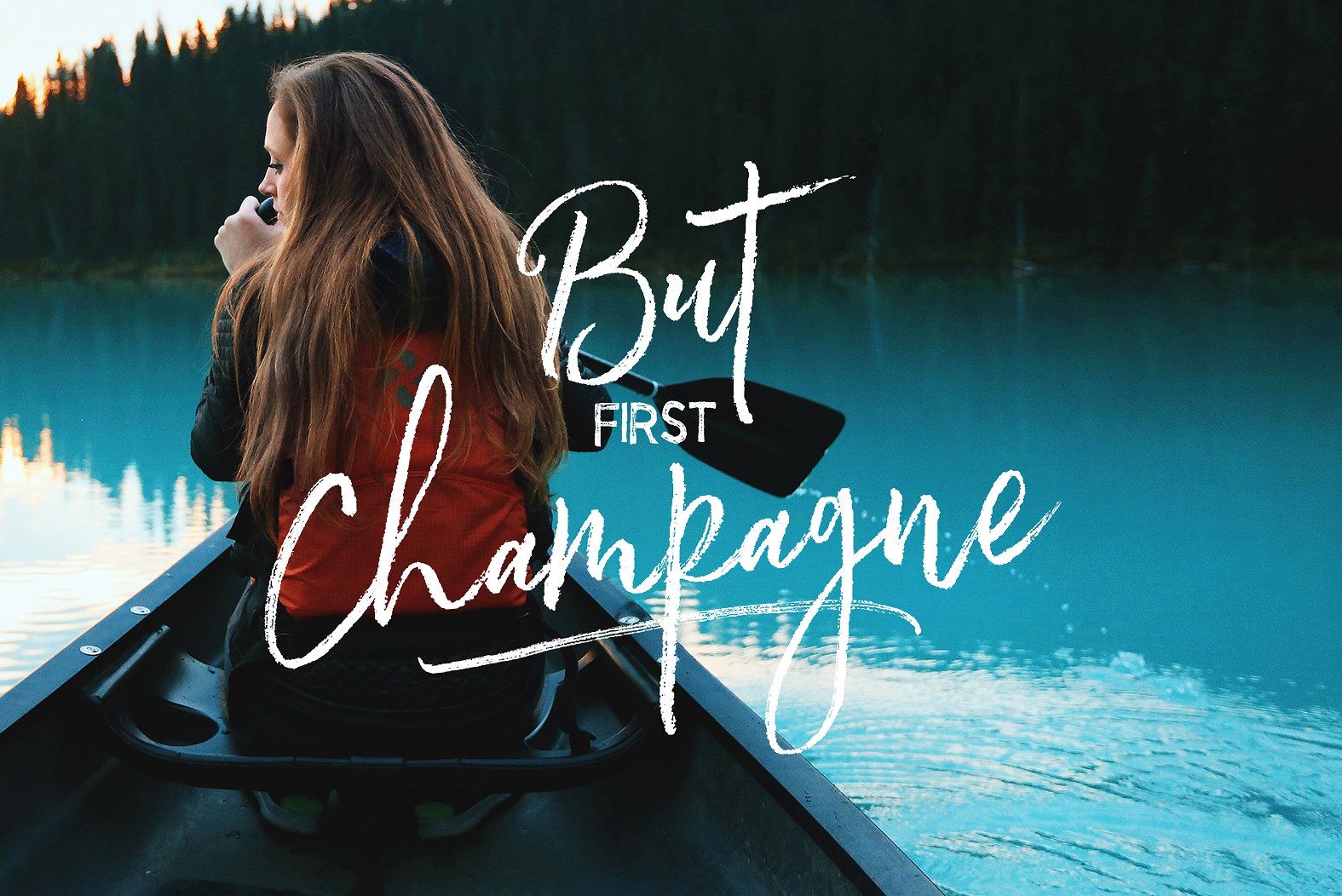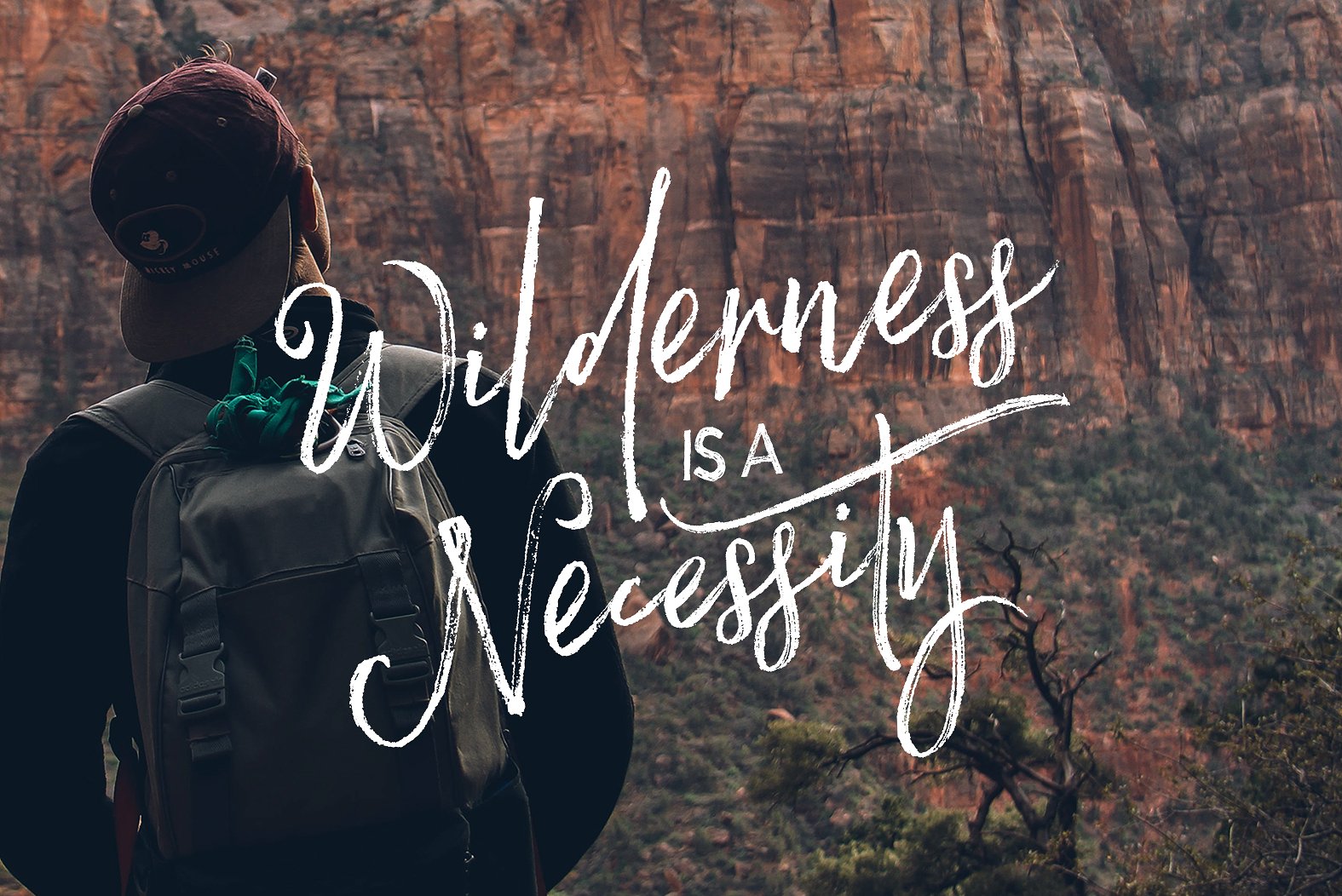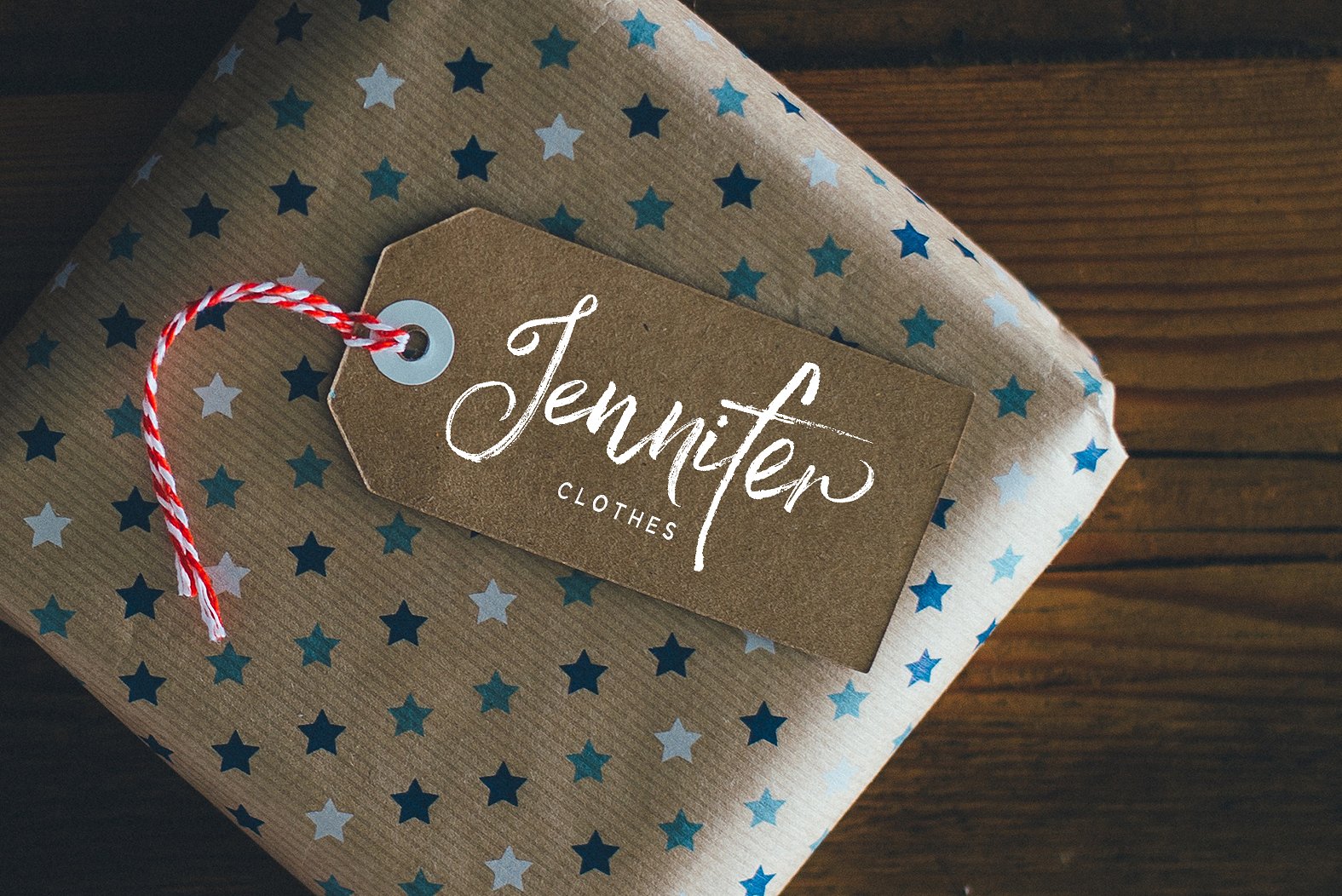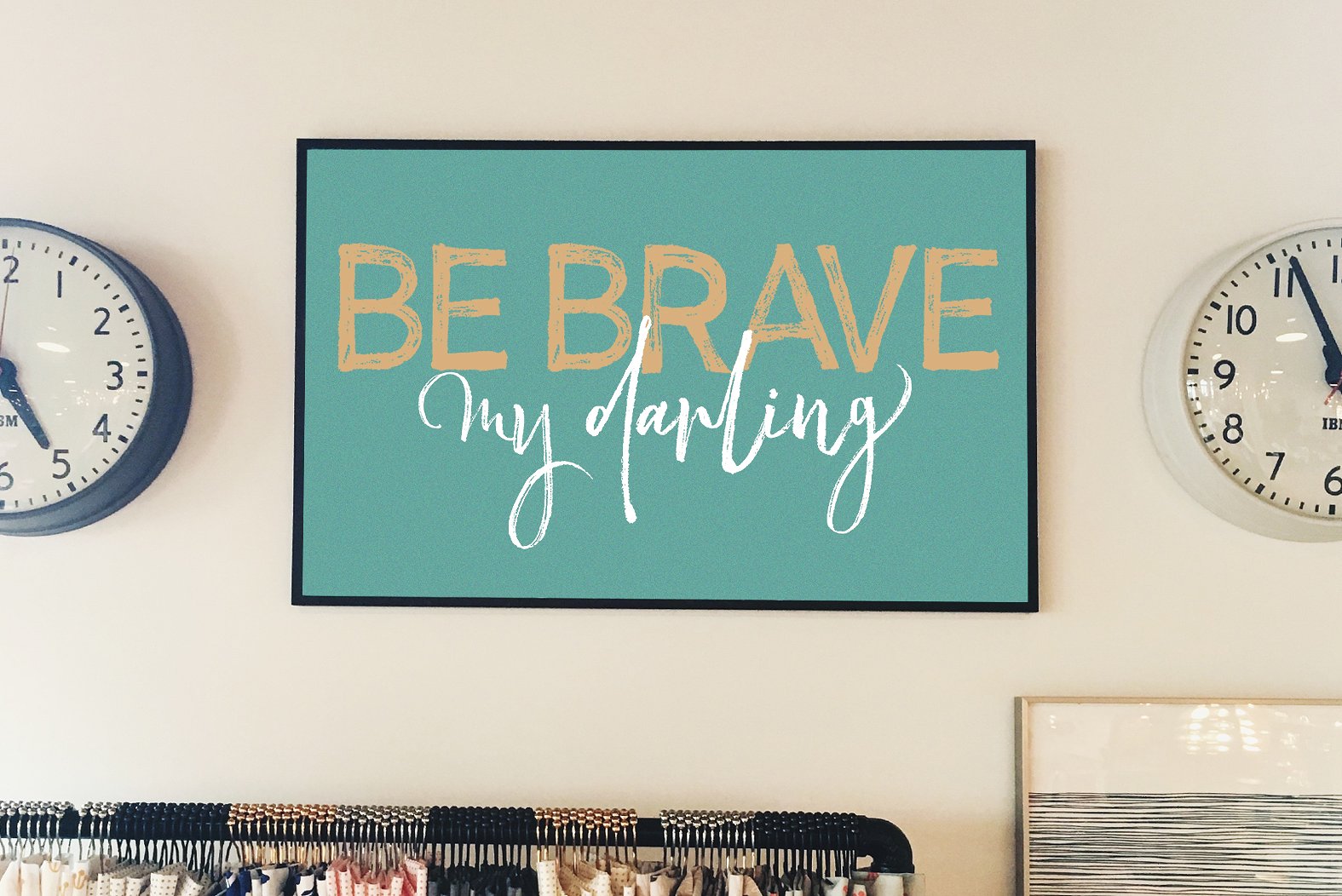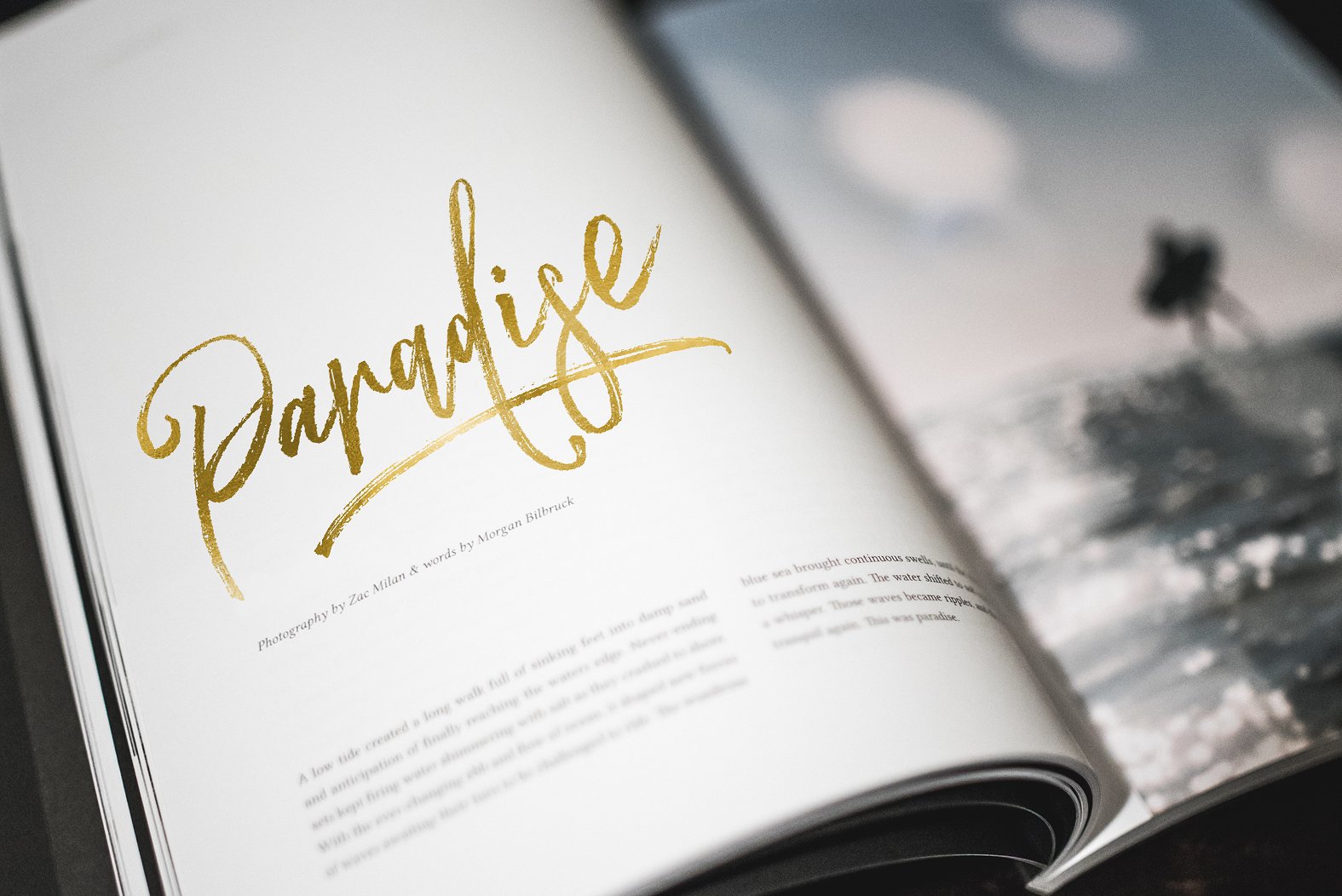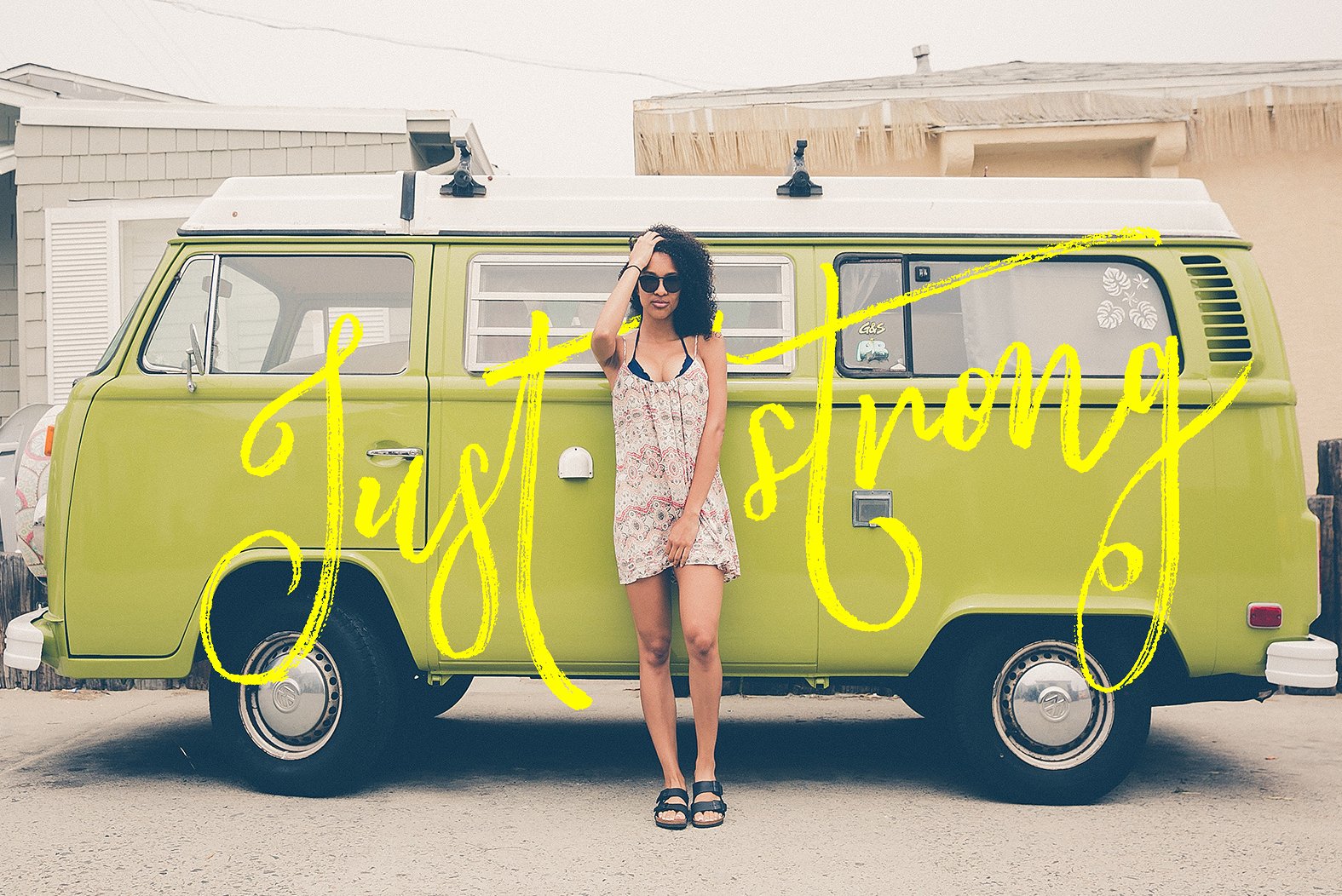
Introduction to Readmitted Font
Have you ever stared at a blank canvas, overwhelmed by the endless possibilities of your creative project? That’s exactly where I was when I discovered the Readmitted Font Duo – a game-changing design resource that made my design process a breeze. The moment I paired the Readmitted Font’s elegant script with its bold san serif counterpart, I knew I had found the perfect duo to elevate my design.
As a designer, you understand the importance of having high-quality fonts at your disposal. With Readmitted Font, you’ll never have to settle for anything less. This versatile font duo is perfect for adding texture, smartness, and appeal to your projects, whether you’re working on a logo, brochure, or social media graphics.
Unlock the Power of Readmitted Font
What sets Readmitted Font apart is its seamless pairing capabilities, making it easy to craft designs that look professional and polished. And the best part? This fantastic font duo is available for a free download, complete with a transparent background that ensures seamless integration into any design.
Key Features of Readmitted Font
- High-quality design resource ideal for creative projects, available as a free download
- Features a unique, modern design with a transparent background, allowing for flexibility in design
- Available in multiple font sizes, including small caps, titling, and caption styles, for added versatility
- Designed to be easily scalable, allowing for effortless resizing without compromising font quality
Honest Review: Readmitted Font
I recently had the chance to work with the Readmitted Font, and I must say it’s been a great addition to my design resource collection. The high quality of this font has allowed me to take my creative project to the next level.
Here are some things that work well with the Readmitted Font:
- ✨ The transparent background makes it easy to use with any design element, allowing for a seamless integration.
- ✨ The font’s versatility allows it to be used in a wide range of creative projects, from digital designs to print materials.
- ⚠️ The font may not be suitable for all design styles, as it has a distinct aesthetic that may not appeal to everyone.
- ⚠️ Some users may find the font’s weight to be a bit inconsistent, which can affect readability.
Overall, I’m quite impressed with the Readmitted Font. Its high quality and versatility make it a valuable resource for any designer. The free download option is a nice touch, making it accessible to designers of all levels. While it may not be perfect, it’s definitely worth considering for your next creative project.
How to Use Readmitted Font
The Readmitted Font is a versatile, high-quality design resource perfect for various creative projects. With a transparent background, it can be easily integrated into your design without any distractions.
Tips for Getting the Most Out of Readmitted Font
Experiment with different font sizes, colors, and combinations to create unique and eye-catching designs. Additionally, pair the Readmitted Font with other high-quality design resources to elevate your creative projects.
The Readmitted Font is perfect for various design applications, including: